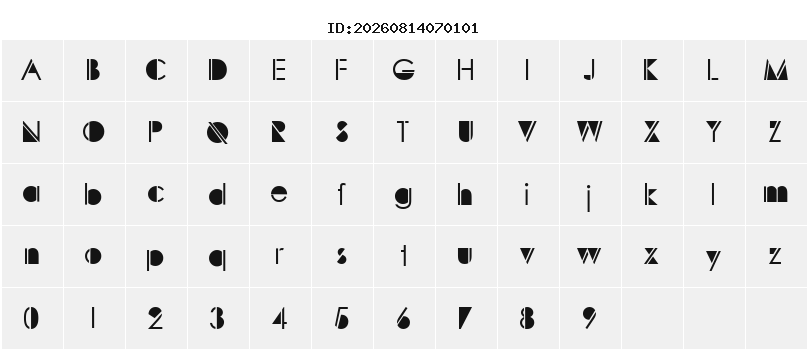
Sunspots.ttf
• Font Name: Sunspots
• Designer: Rachel Lauren Adams
About Sunspots.ttf
Sunspots.ttf is a modern, elegant sans-serif font designed for ultimate readability and visual harmony. Perfect for branding, headlines, web design, and print materials.